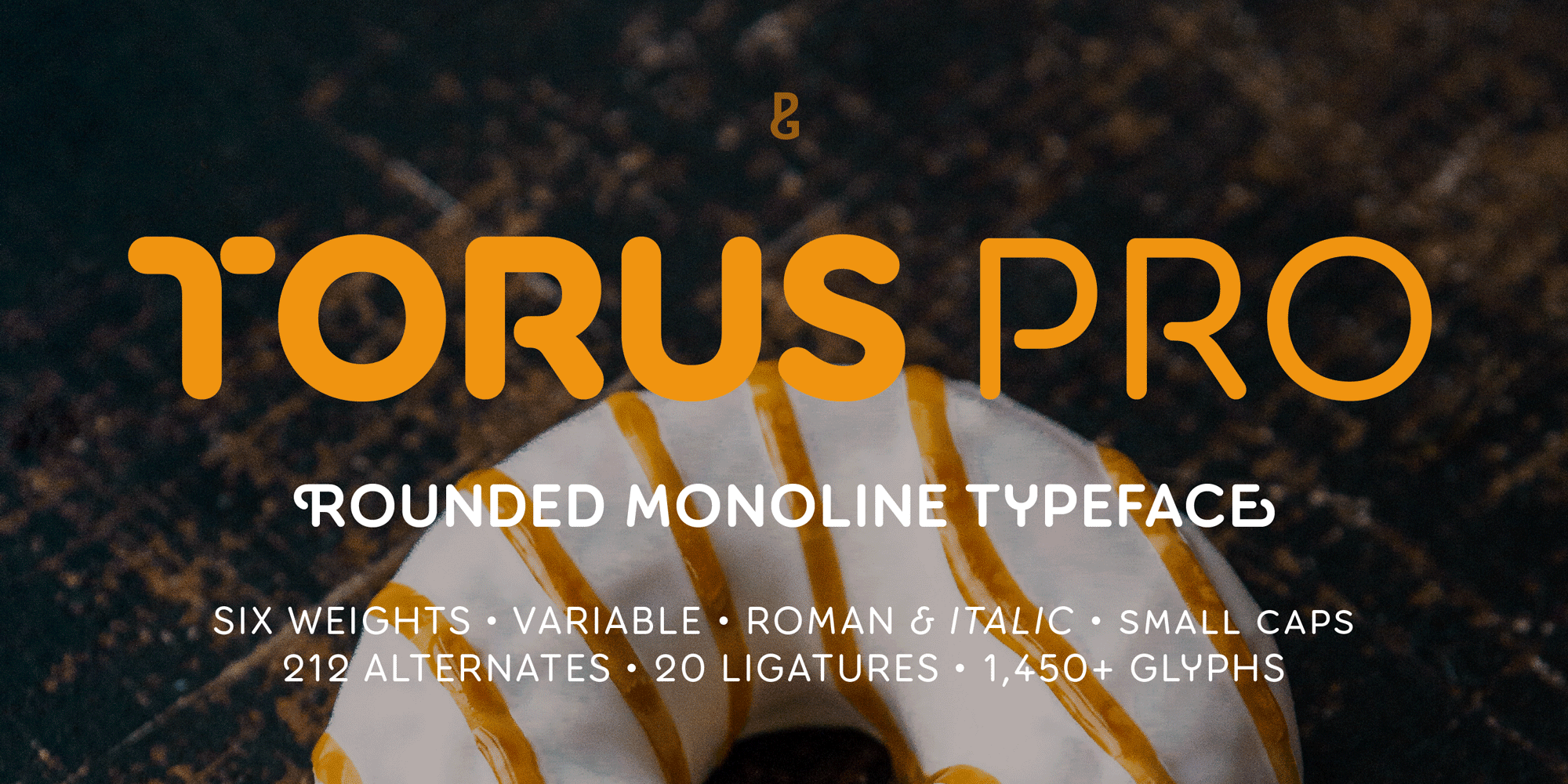
Experience geometric perfection with Torus Pro Font Free Download – a meticulously crafted sans-serif that strikes the ideal balance between mathematical precision and humanist warmth. This professional-grade typeface delivers exceptional clarity across all media, making it the ultimate choice for brands that value both rationality and approachability.
Why Torus Pro Excels:
9 Weight System from Hairline to Heavy
True Italics with optimized angles
Enhanced Legibility at any size
Extended Language Support (Latin, Cyrillic, Greek)
Professional Applications:
Tech company branding with human touch
Financial reports requiring crystal clarity
UI/UX design systems
Wayfinding and signage
Academic publications
Standard and tabular numerals
Multiple stylistic sets
Case-sensitive punctuation
Design Tip: Use the lighter weights for elegant interfaces, heavier weights for impactful headlines. The italics add subtle dynamism to technical documentation.